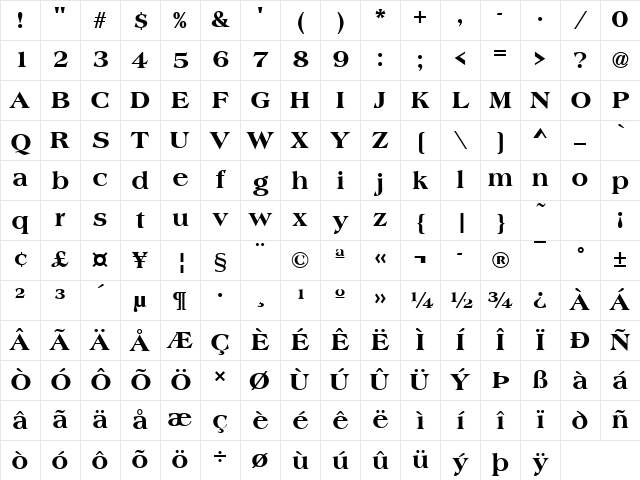
Americana Becker Ext Bold Regular
Design Context for Americana Becker Ext Bold
Americana Becker Ext Bold is a composed and adaptable typeface that performs quietly and consistently across a wide range of design contexts. Its bold stroke weight gives it real presence on the page.